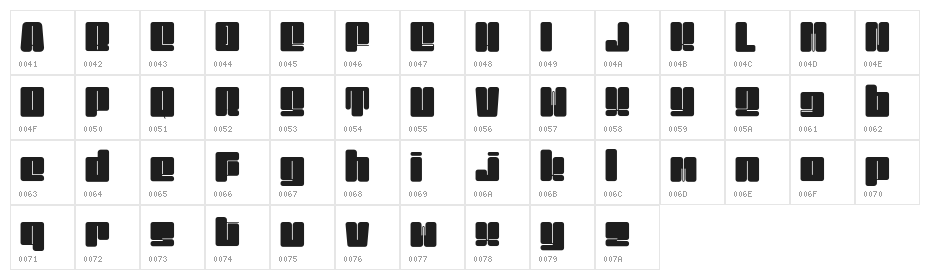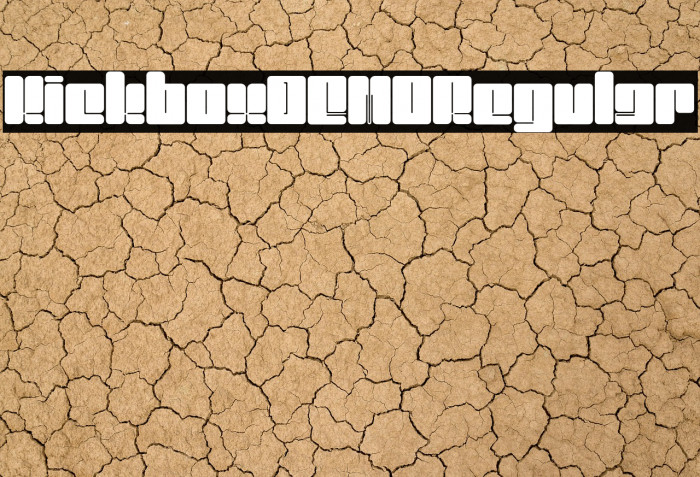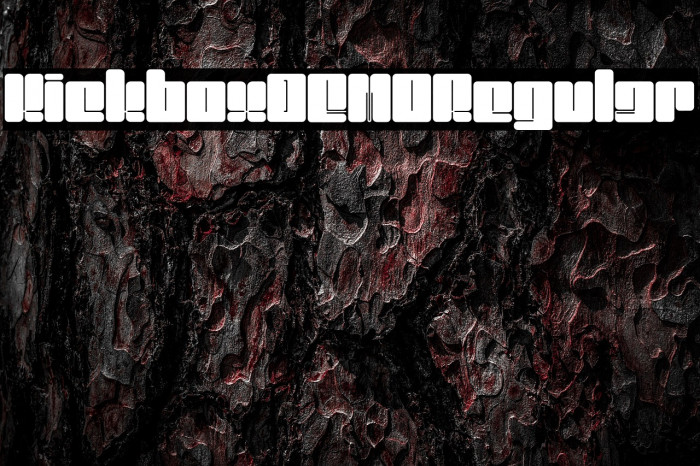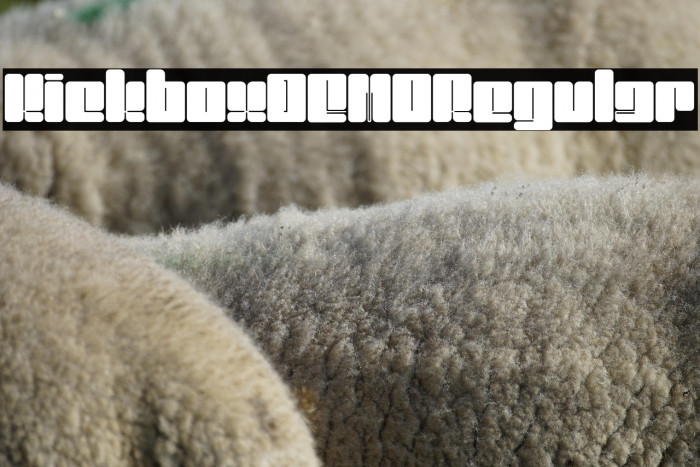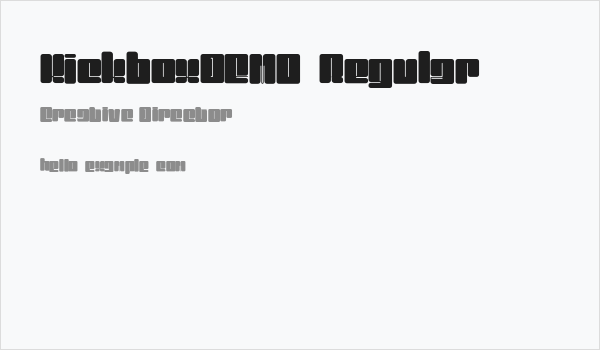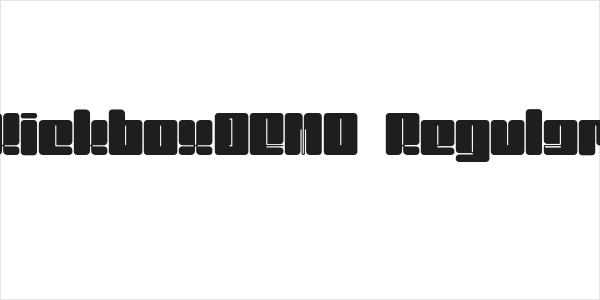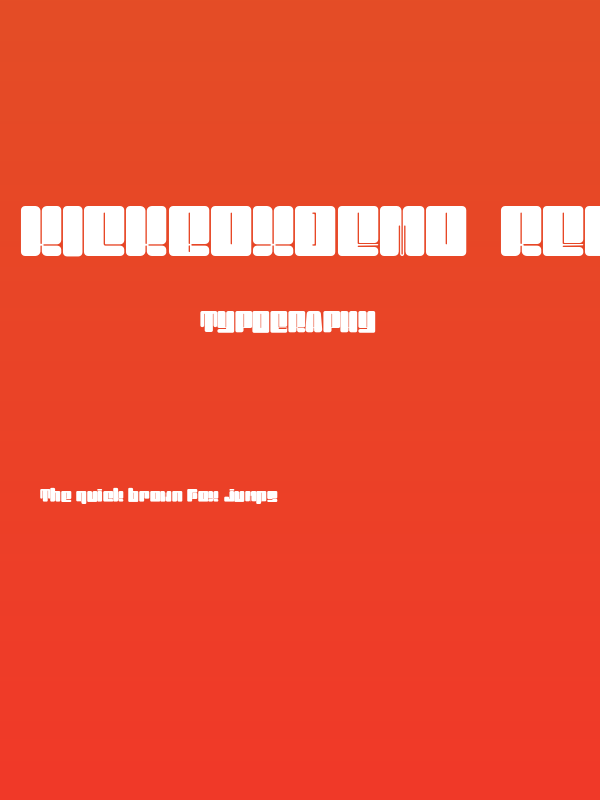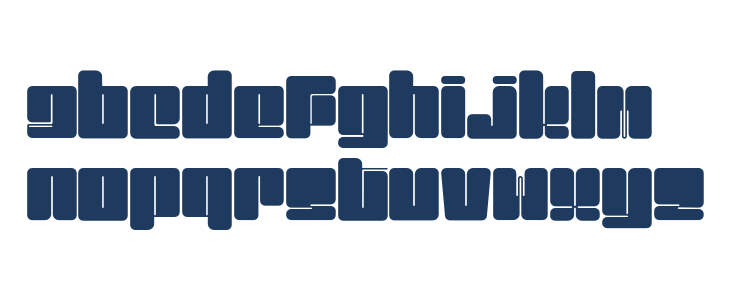
KickboxDEMO-Regular Font
KickboxDEMO-Regular Description
This font features a bold, geometric design with a distinctly modern and futuristic aesthetic. The characters are constructed with thick, block-like shapes that create a strong visual impact. The rounded edges soften the overall appearance, adding a touch of approachability to the otherwise robust structure. The uniformity in the height of the characters contributes to a cohesive and balanced look. This font is particularly eye-catching due to its high contrast between the thick strokes and the negative space, making it ideal for attention-grabbing headlines and display purposes.
| Proposed Projects | Ideal for branding, posters, and any project requiring a strong visual impact. |